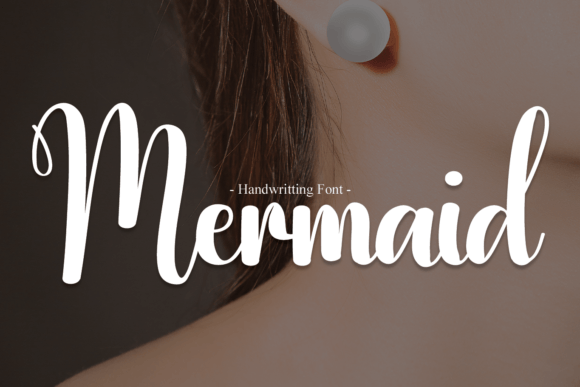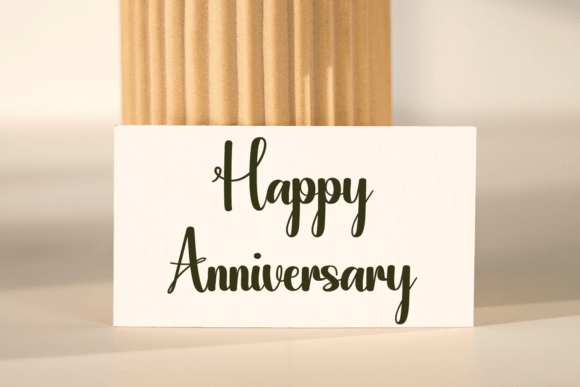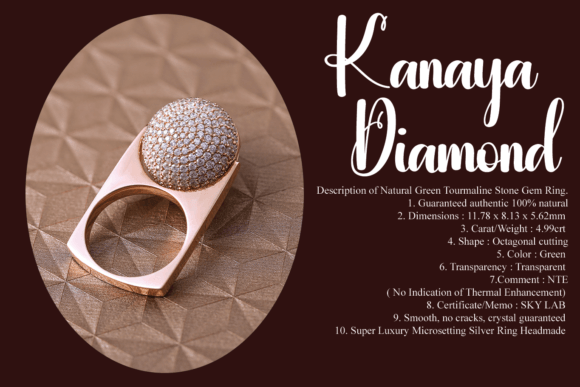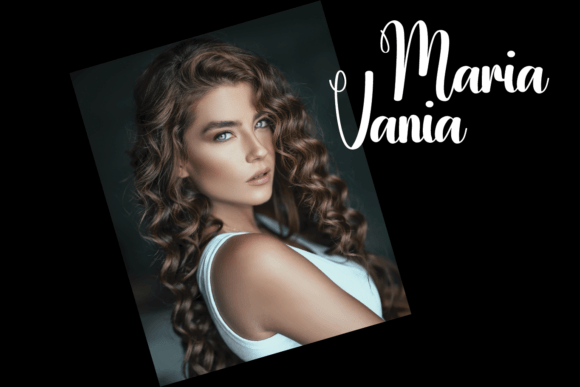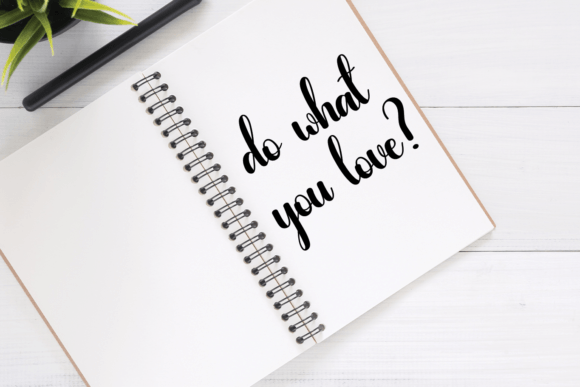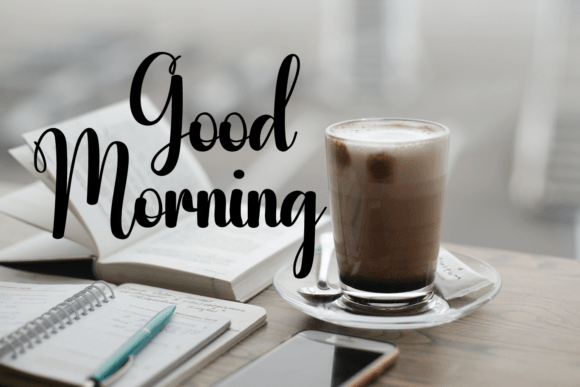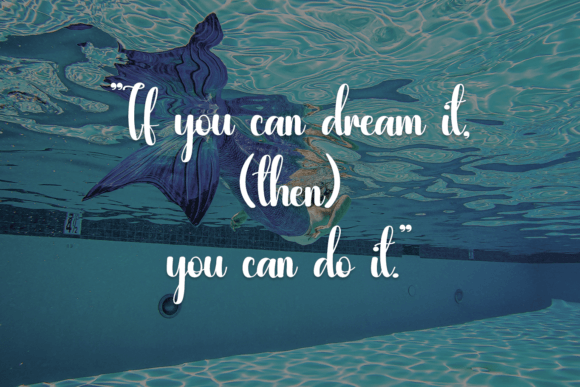
Mermaid Font
About Mermaid Font
“Mermaid” is a chic and refined script font that radiates sophistication and elegance. With stylish alternates and ligatures, this font becomes the perfect match for a wide range of creative projects. Adding “Mermaid” to your designs introduces a touch of luxury and artistry, making them come alive with a distinctive and elegant flair.
The chic and refined qualities of “Mermaid” are immediately evident in its script design. The flowing and graceful characters contribute to an overall sense of sophistication, making it well-suited for projects that demand a touch of elegance.
The inclusion of stylish alternates and ligatures enhances the font’s versatility and visual appeal. These design elements provide creative flexibility, allowing you to customize and personalize your text to achieve the desired aesthetic. Whether used for branding, invitations, or any creative endeavor, “Mermaid” adapts seamlessly to diverse design contexts.
The font’s ability to make designs come alive is a testament to its captivating and refined nature. It elevates your text, turning it into a focal point of visual interest. Whether you’re working on print materials, digital graphics, or other projects, “Mermaid” ensures that your designs exude a sense of luxury and sophistication.
In summary, “Mermaid” is more than just a font; it’s a chic and refined design tool that adds a touch of sophistication and elegance to your creative projects. With its stylish alternates and ligatures, this font becomes a key element in creating designs that are not only visually captivating but also uniquely tailored to your creative vision.